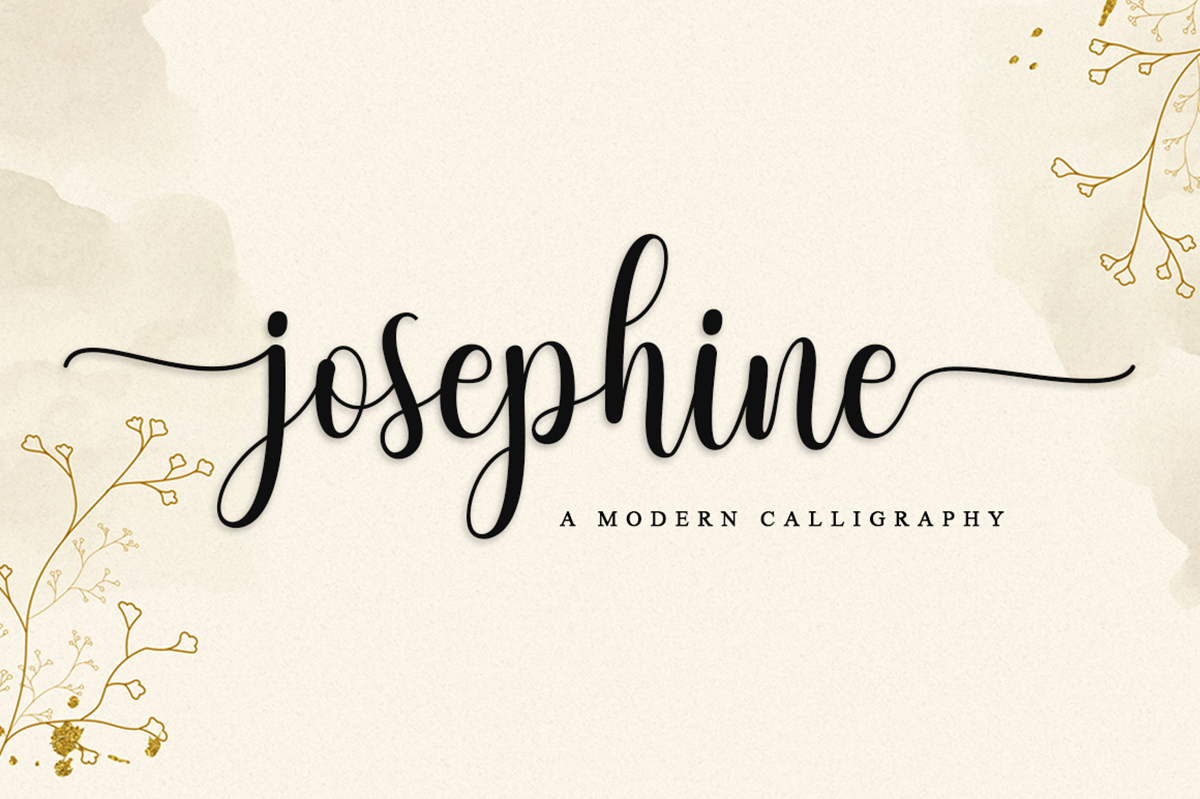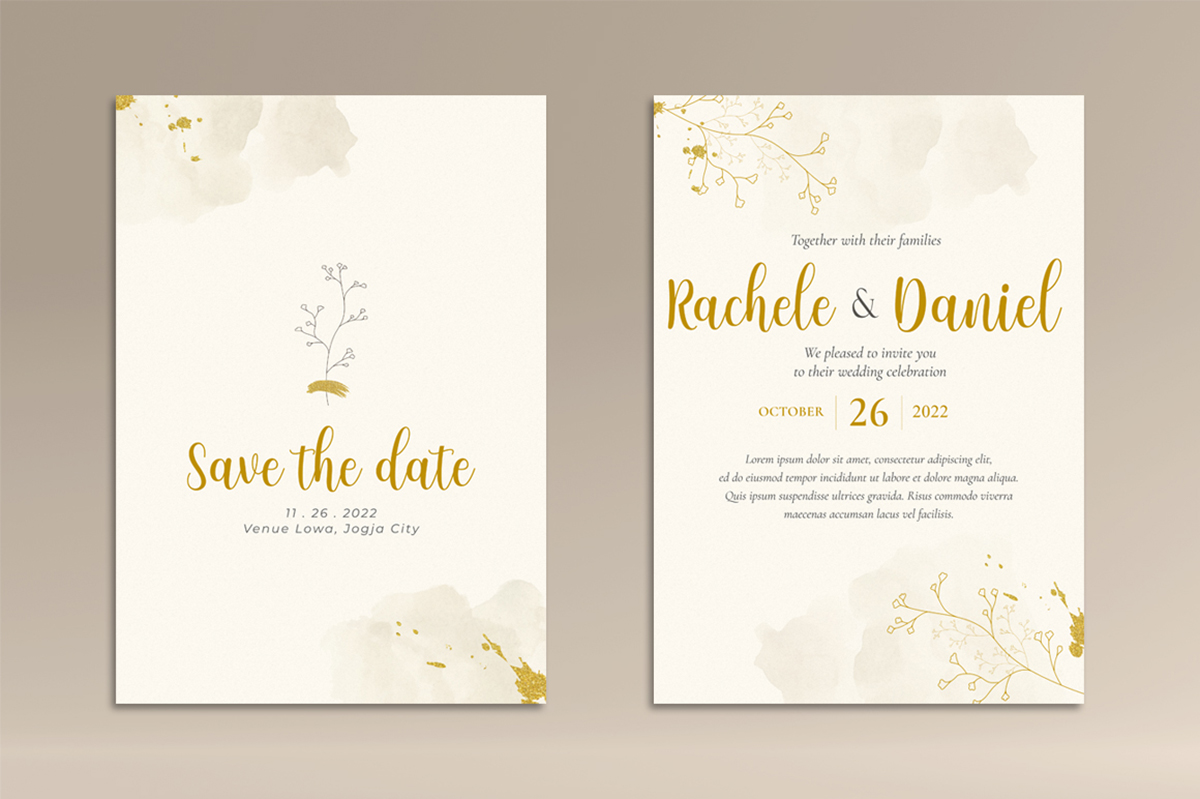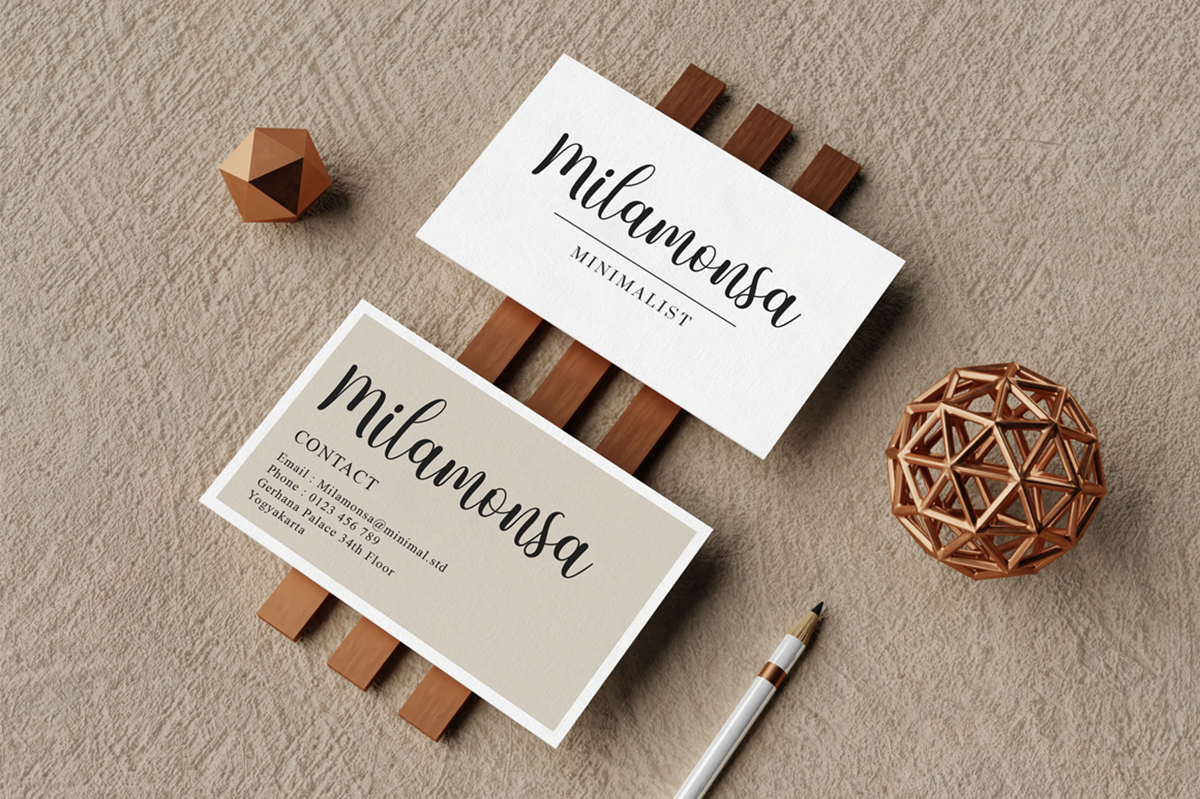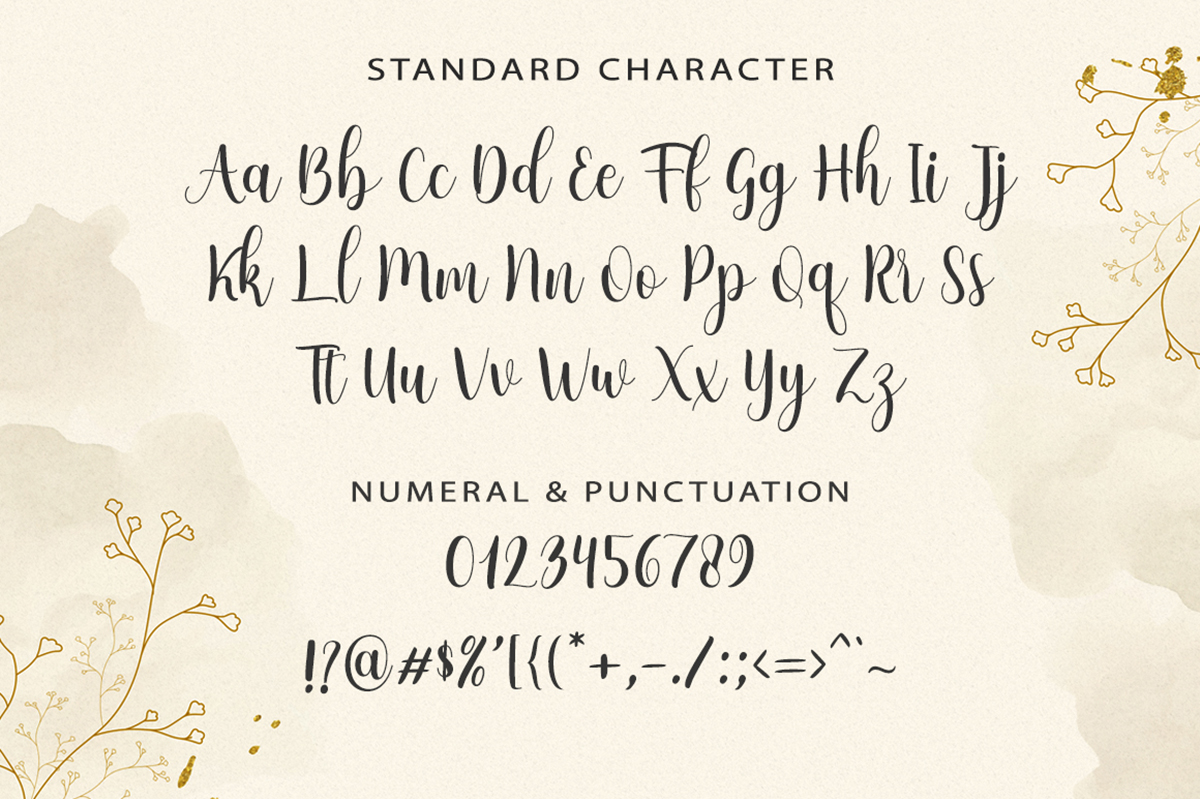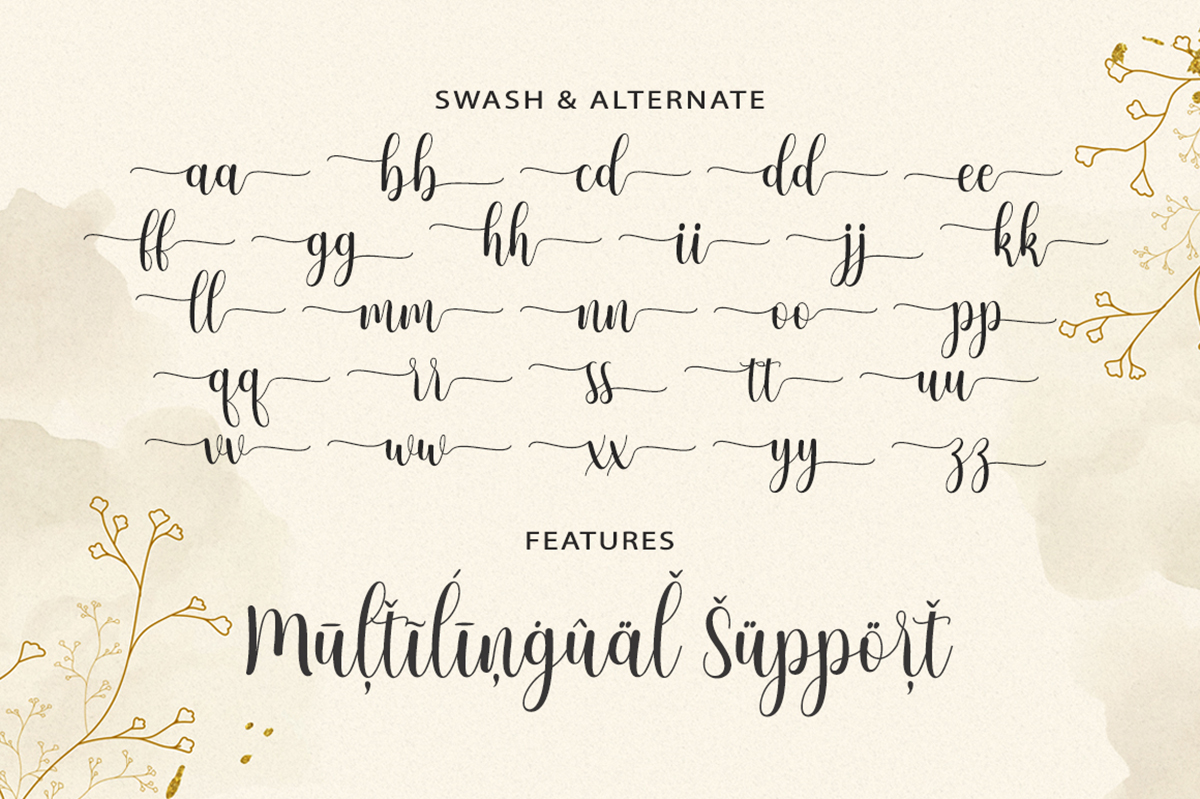
Josephine Script Free Font
Josephine Script Free Font is a modern script font that feels very elegant that features a modern style among other fonts. This font is very well suited for various projects that require a curly handwritten font. Use this font to create memorable romantic posters, wedding invitations, greeting cards, branding, flyers, t-shirt and pillow prints, and more. If you like it don’t forget to check out the full version.
Author: Fana Studio